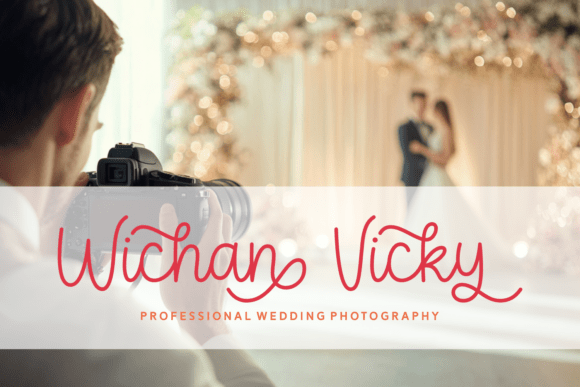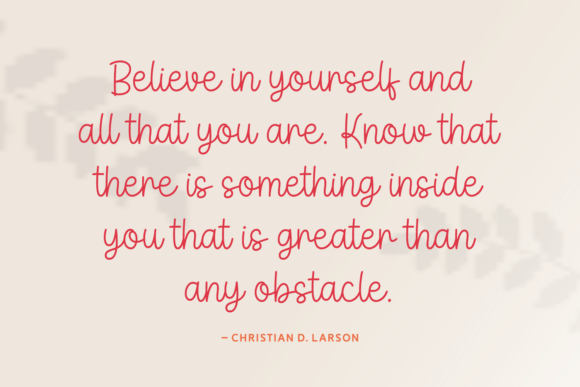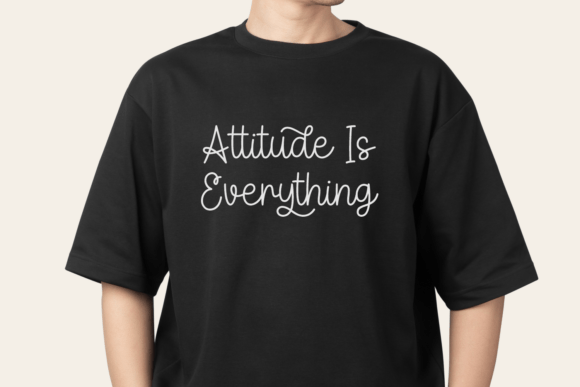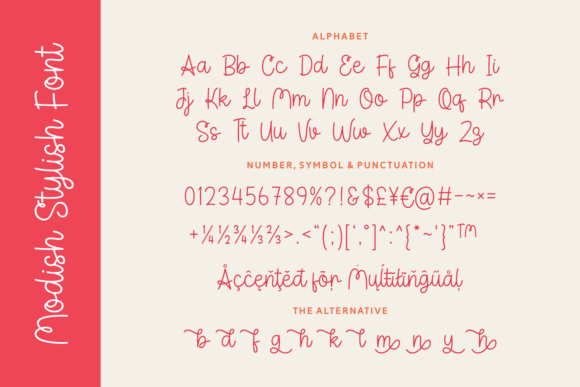
Introduction to Modish Stylish Font
Have you ever been stuck on a creative project, searching for the perfect design resource to give it that extra oomph? I know I have. Remember the moment when you finally stumbled upon the perfect font, and it all came together? That’s what I’m about to share with you – a game-changer in the world of design: the Modish Stylish Font.
This fresh and youthful script font is not just a pretty face; it’s a valuable addition to any designer’s toolkit. Its unique combination of bouncy baseline, quirky curves, and handcrafted flair makes it perfect for fashion designs, social media graphics, and anything that needs a touch of fun. Whether you’re working on a high-quality design project or just looking for a free download to spice up your next creative endeavor, the Modish Stylish Font is sure to impress.
Key Features of Modish Stylish Font
- High-quality design with a unique, creative flair perfect for any project.
- Modish Stylish Font is designed to be versatile and suitable for a wide range of creative projects, from branding and advertising to digital art and graphics.
- Unique, stylish design elements make this font stand out from other design resources and add a touch of elegance to any project.
Honest Review: Modish Stylish Font
I recently stumbled upon the Modish Stylish Font and was excited to put it to the test in my latest creative project. As a designer, I’m always on the lookout for high-quality design resources that can elevate my work.
One of the things that I love about this font is its versatility. It works well for both digital and print applications, making it a great addition to my design arsenal. ✨ I was also impressed by the clean, modern aesthetic of the font, which pairs well with a transparent background for a sleek look.
- Works well for both digital and print applications
- Modern aesthetic that pairs well with transparent backgrounds
- Only available in a limited range of font sizes
- May not be suitable for projects that require a lot of customization
Overall, I’m impressed with the Modish Stylish Font and would definitely recommend it to other designers looking for a high-quality design resource. While it may have some limitations, its versatility and modern aesthetic make it a great addition to any design toolkit.
The Modish Stylish Font is a high-quality design resource ideal for creative projects requiring a unique and stylish touch. With a transparent background, this font can be easily integrated into various design tools.
The Modish Stylish Font is ideal for creative projects such as:
- Infographics and presentations
- Websites and landing pages